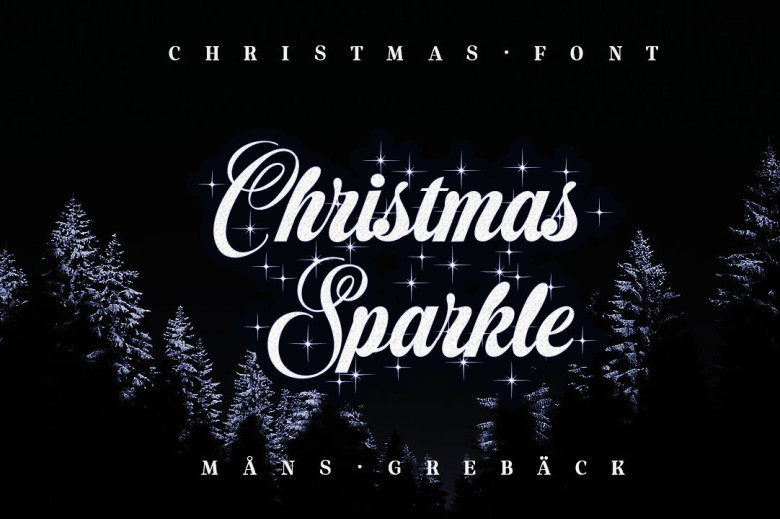
Christmas Sparkle Font
Christmas Sparkle is a decorative Christmas font. This original typeface, drawn and created by Måns Grebäck, brings a spark to any Christmas themed project. It can be used for logos, wedding invitations, titles, signatures, t-shirts, letterheads, signboards, labels, posters and much more!